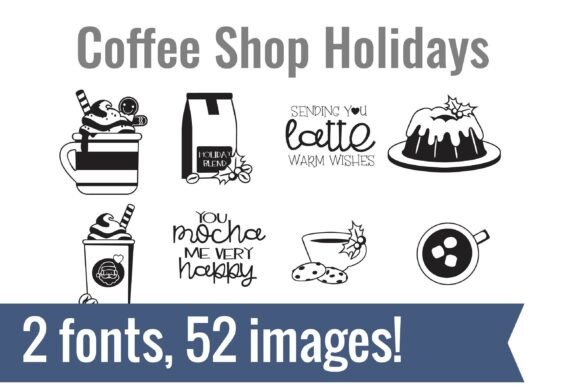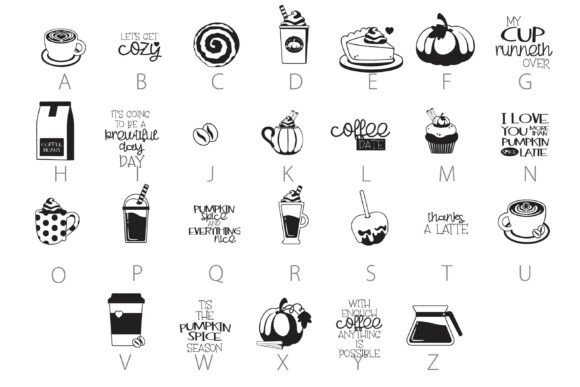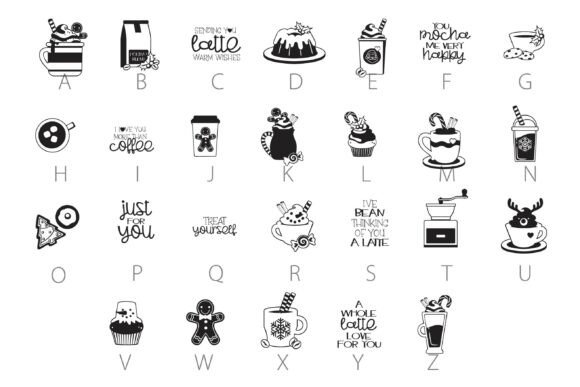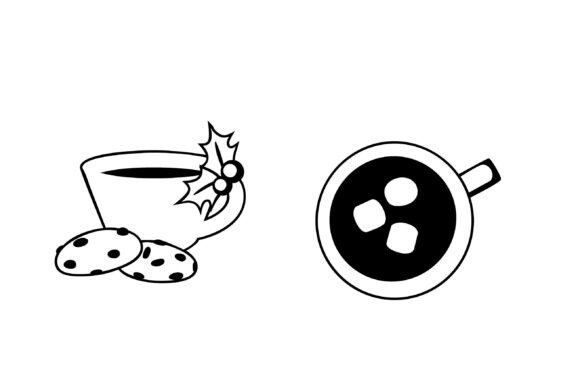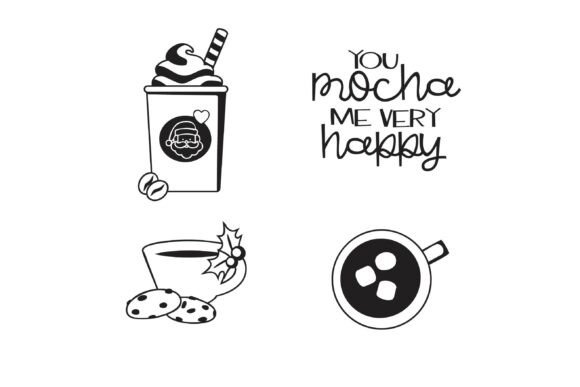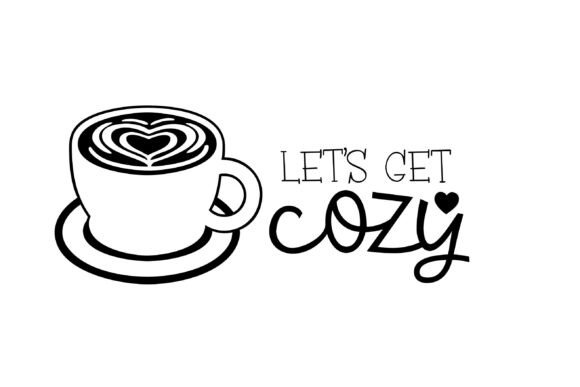
Coffee Shop Dingbats Font: Cozy Up with Delicious Designs
As the leaves change colors and the temperatures drop, there’s nothing quite like sipping on a warm cup of coffee or tea to cozy up on a chilly fall or winter morning. The Coffee Shop font set is here to bring that same feeling of warmth and comfort to your designs. This delightful dual collection of dingbat typefaces is dedicated to all things lattes, pumpkin spice, and inviting.
A Deliciously Detailed Collection of Glyphs
The Coffee Shop font package is a treasure trove of 52 mouth-watering glyphs, each one carefully crafted to bring a sense of coziness to your projects. From a steaming mug with latte art to a whipped-cream-topped cup, a slice of pumpkin pie, and a coffee bean bag, this collection has everything you need to create designs that feel like a warm hug.
But that’s not all – the Coffee Shop font set also includes a range of expressive quotes, such as “LET’S GET cozy” and “MY CUP runneth over.” These playful phrases are perfect for adding a touch of personality to your designs, whether you’re creating social media graphics, blog posts, or promotional materials.
A Stylized, Rustic Aesthetic
The Coffee Shop typeface boasts a stylized, slightly rustic aesthetic that’s perfect for small business branding, menu design, blog graphics, seasonal promotions, or creating cozy home decor prints. The font’s unique blend of modern and vintage elements gives it a charming, homespun feel that’s sure to delight.
Whether you’re a designer, crafty DIY enthusiast, or simply someone who loves to get creative, the Coffee Shop font set is the perfect addition to your toolkit. With its versatile dingbat font, you can instantly add a sense of warmth and comfort to any project, making it perfect for:
- Small business branding, such as logos, packaging, and marketing materials
- Menu design for cafes, restaurants, and bakeries
- Blog graphics, social media posts, and other online content
- Seasonal promotions, such as holiday cards, flyers, and posters
- Cozy home decor prints, including wall art, signs, and gift tags
No More Endless Searching for Icons and Graphics
We’ve all been there – spending hours scouring the internet for the perfect icons and graphics to use in our designs. But with the Coffee Shop dingbat font, those days are behind you. This comprehensive collection of cohesive, scalable glyphs puts everything you need at your fingertips.
No more tedious searching or tedious designing from scratch. Simply type in the glyph you need, and you’re good to go. The Coffee Shop font set is the ultimate time-saving solution for designers, crafters, and anyone who wants to create beautiful, cohesive designs without the hassle.
Get Ready to Cozy Up with Delicious Designs
If you’re looking for a way to add a touch of warmth and comfort to your designs, look no further than the Coffee Shop dingbat font. With its deliciously detailed glyphs, stylized rustic aesthetic, and versatility, this font set is the perfect addition to any creative project.
Key Features of the Coffee Shop Dingbat Font
- Dual collection of dingbat typefaces
- 52 deliciously detailed glyphs, including:
- Steaming mug with latte art
- Whipped-cream-topped cup
- Slice of pumpkin pie
- Coffee bean bag
- Expressive quotes like “LET’S GET cozy” and “MY CUP runneth over”
- Stylized, slightly rustic aesthetic
- Perfect for small business branding, menu design, blog graphics, seasonal promotions, and cozy home decor prints
- Cohesive, scalable glyphs for easy use